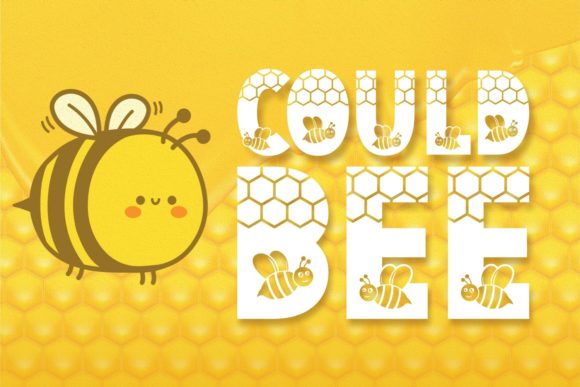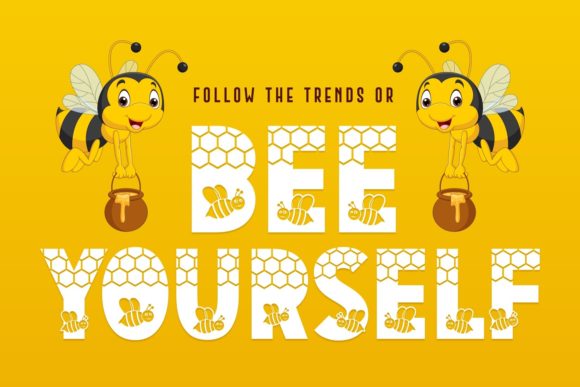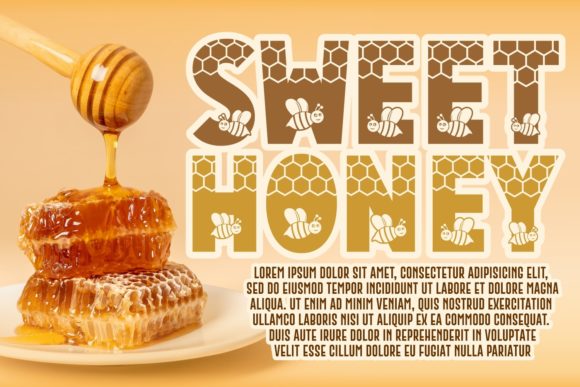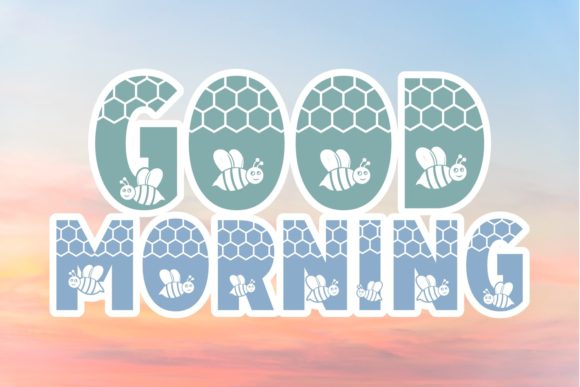
Could Bee Font: A Playful Decorative Font for Cute DIY Projects
About the Could Bee Font
Meet Could Bee Font, a stunning font that brings a touch of elegance and professionalism to any design. Could Bee is a sweet and original decorative font. It is perfect for any branding project such as logos, t-shirt printing, creative products, and more.
Could Bee’s playful, rounded forms make it ideal for children’s products, branding for sweet treats, or projects needing a friendly, approachable feel. It excels in headlines, short text blocks, and logos where its unique character shines. However, its decorative nature makes it less suitable for body text or UI elements requiring high readability.
Pair Could Bee with a clean sans-serif like Open Sans for a balanced contrast, or a classic serif like Garamond for a more sophisticated look. For a bolder statement, consider pairing it with a geometric sans-serif such as Montserrat. Avoid pairing it with other highly decorative fonts, which might create visual clutter.
The font projects a cheerful, slightly whimsical personality, best suited for brands emphasizing fun, creativity, and approachability.
Could Bee Font Example